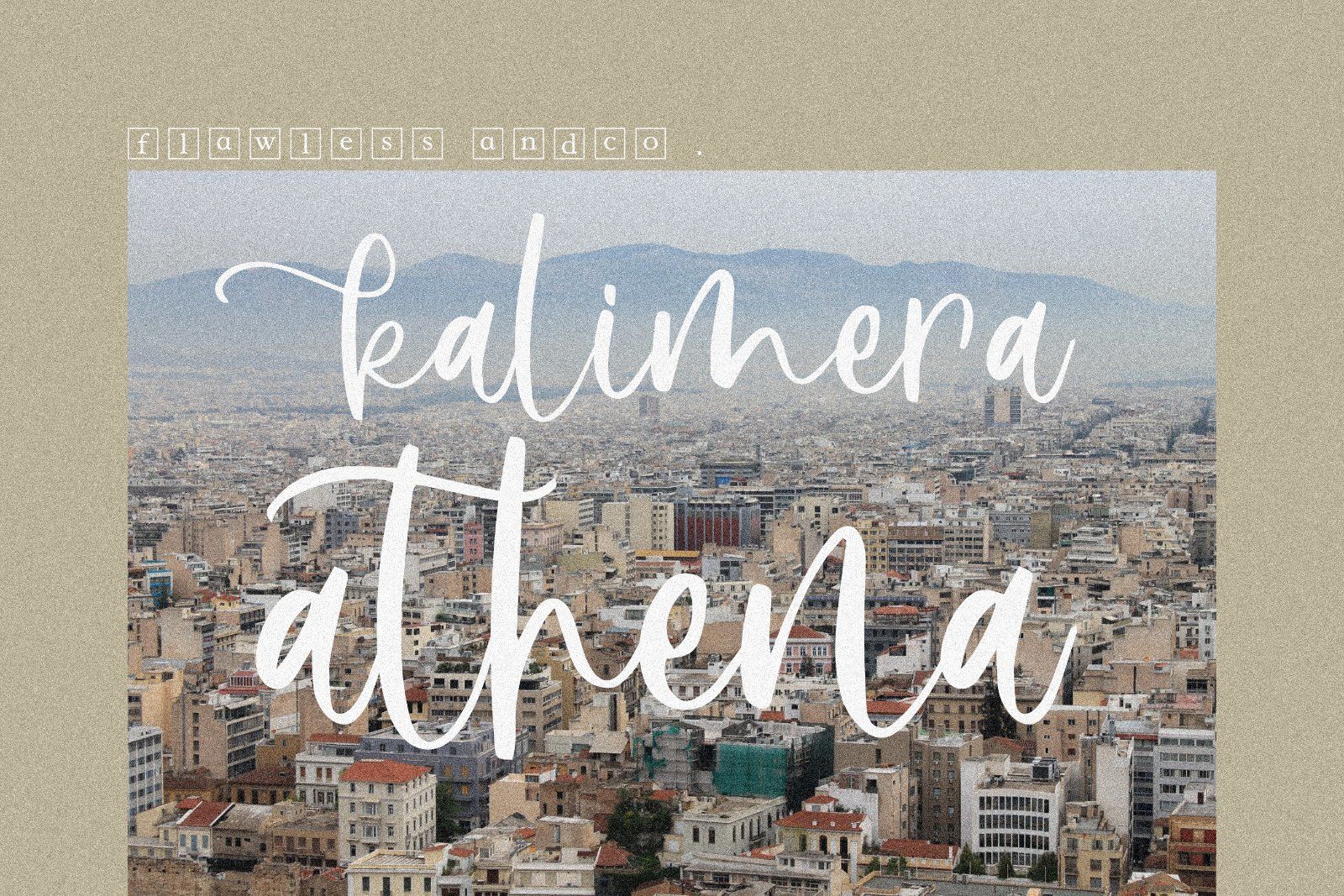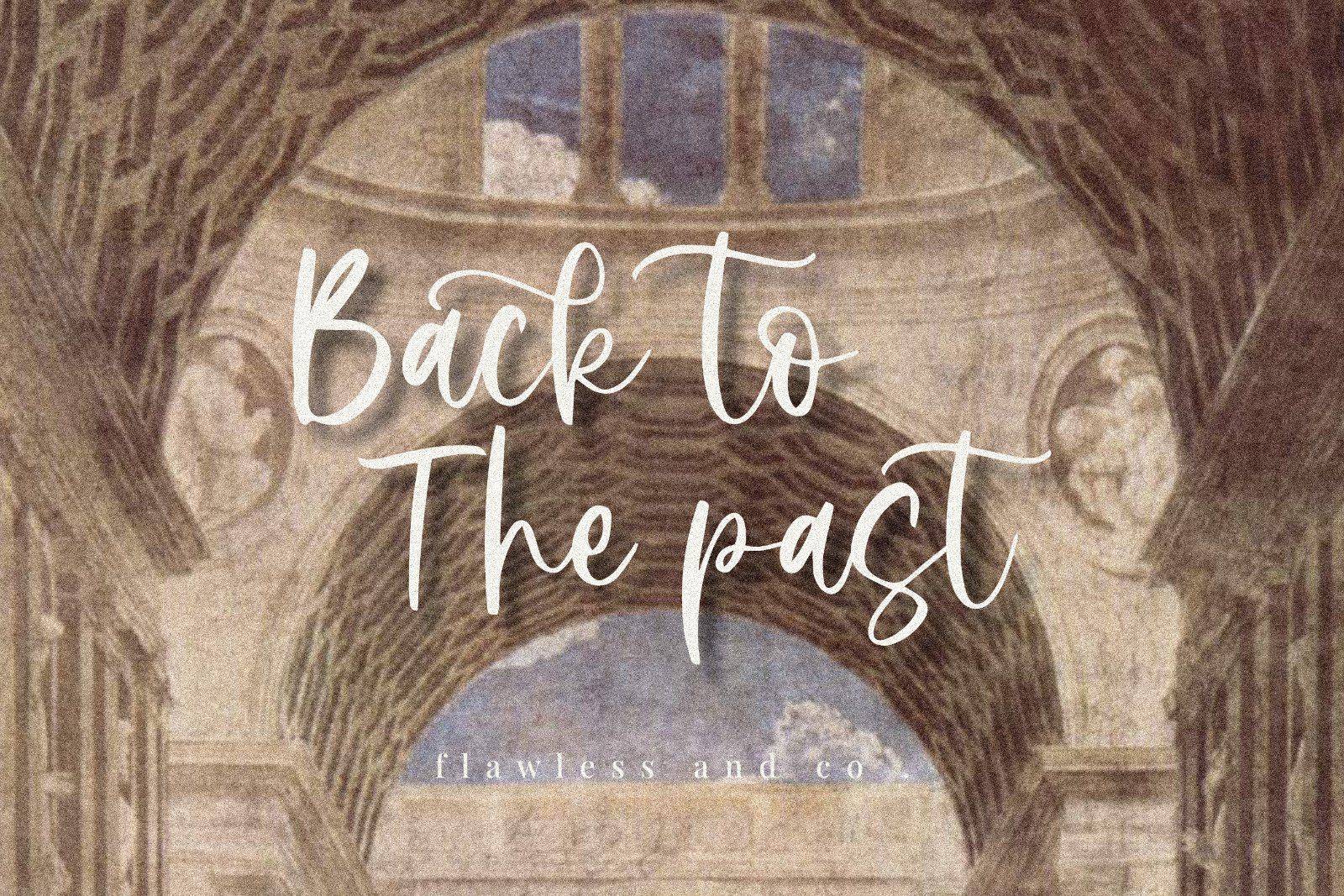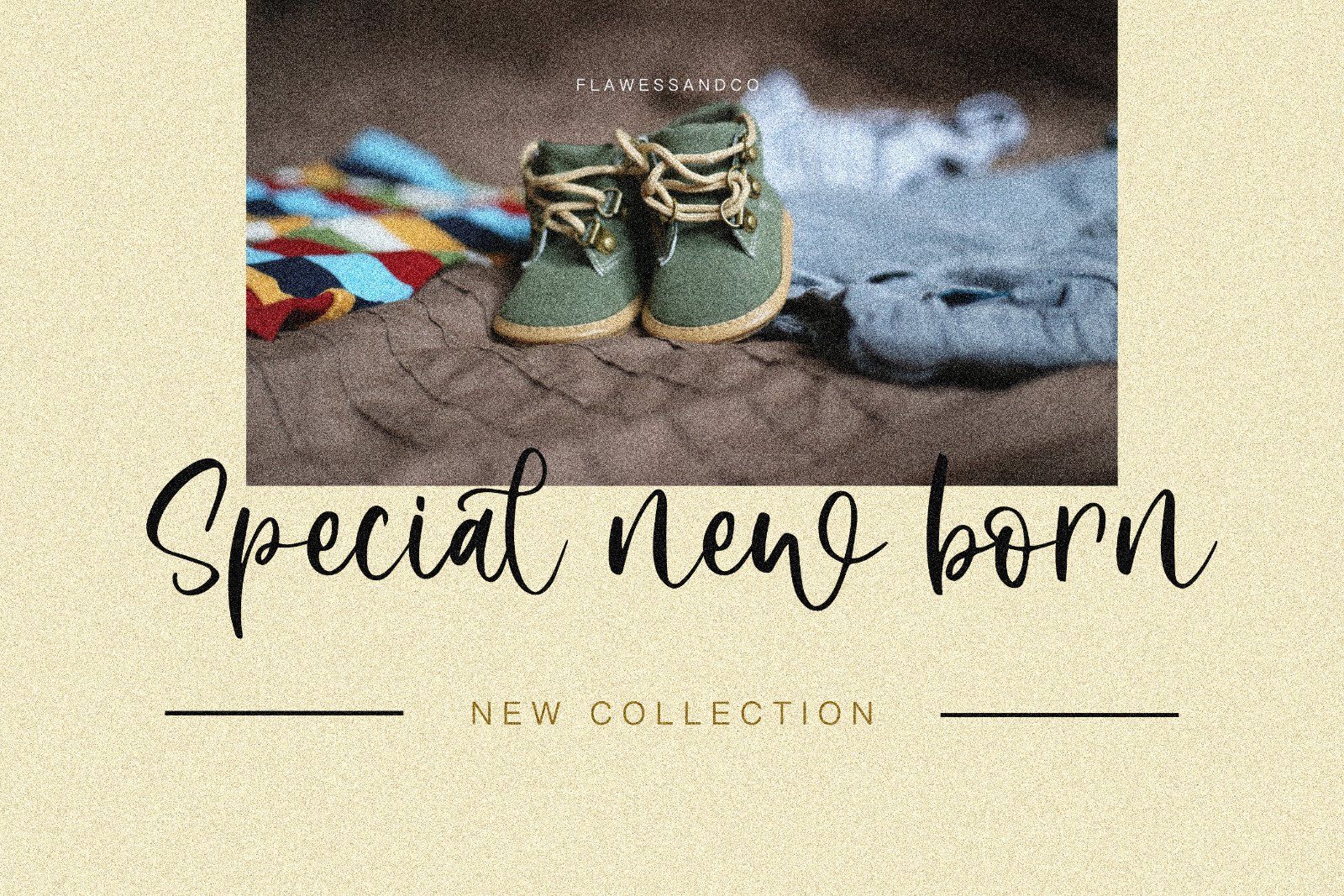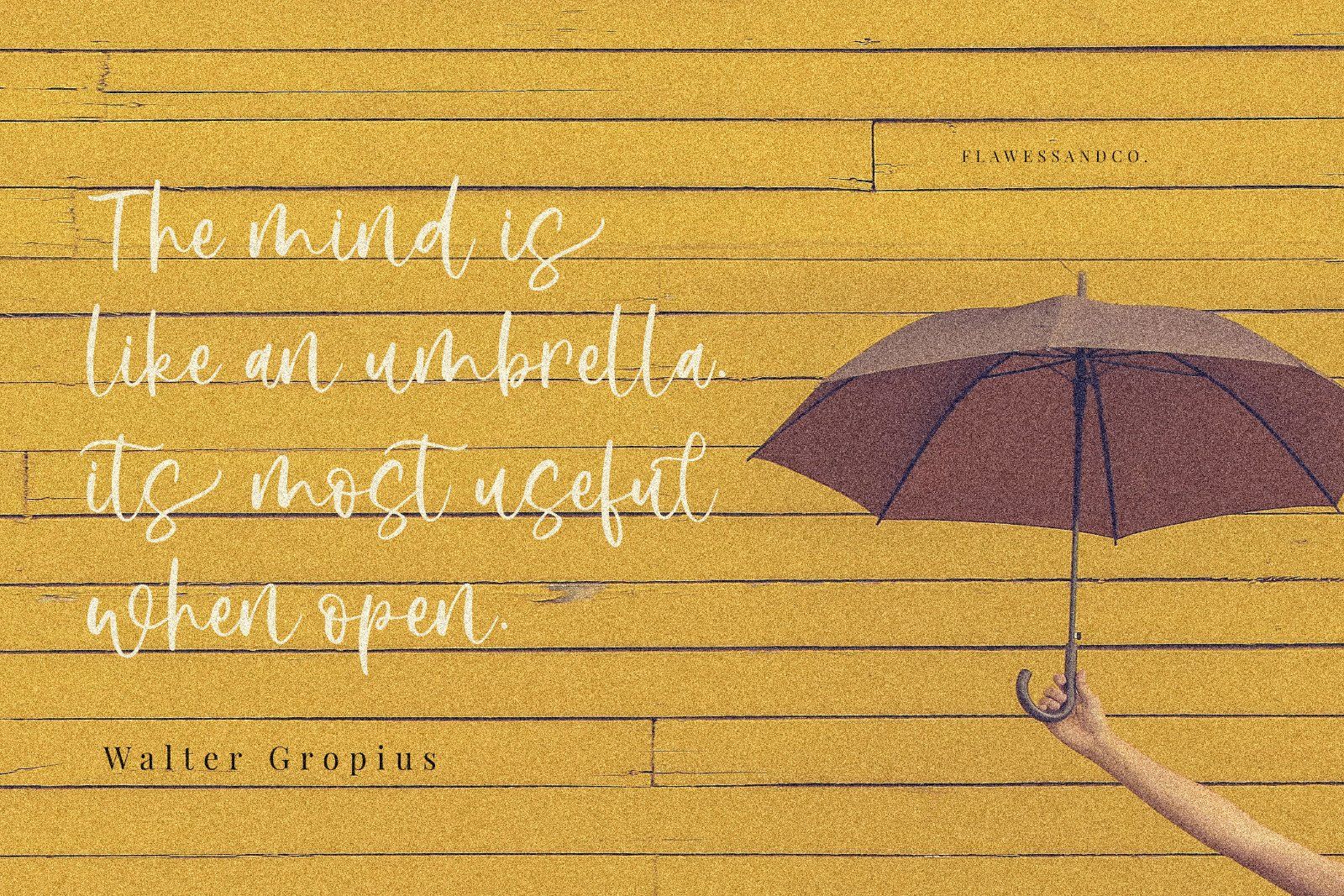
MarketplaceFontsPalm Fortress - Elegant Script Font
Palm Fortress is an elegant script font with a graceful handwritten character, flowing strokes, and beautifully extended swashes. Inspired by the relaxed beauty of tropical destinations, Palm Fortress combines a natural handwritten feel with a refined and stylish appearance. Its expressive letterforms create a smooth and personal touch, making it perfect for designs that need a romantic, artistic, and effortlessly elegant atmosphere. Whether used for branding, invitations, lifestyle graphics, or travel-inspired projects, Palm Fortress adds a sophisticated handwritten charm to every composition.
• Uppercase alphabet A-Z
• Lowercase alphabet a-z
• Alternate Character
• Numbers 0-9
• Some punctuation